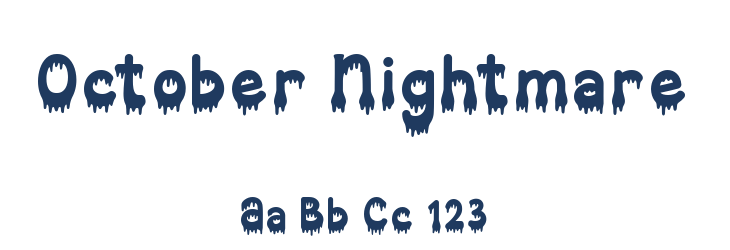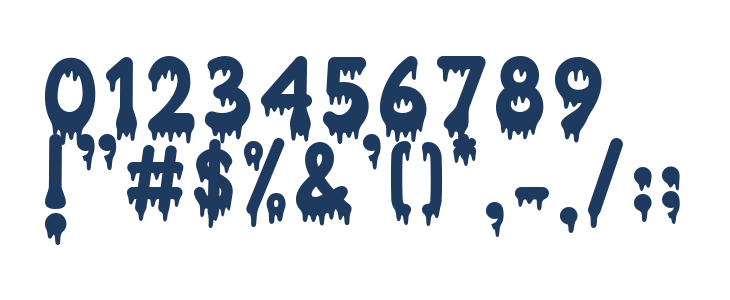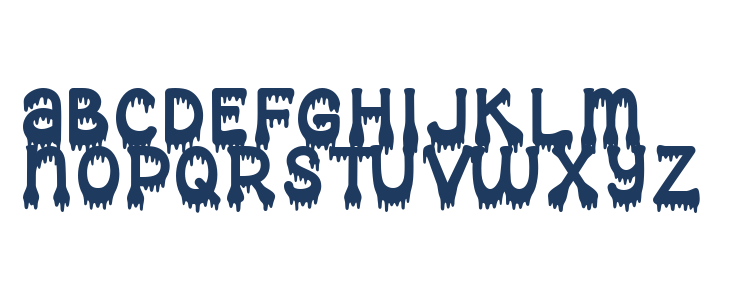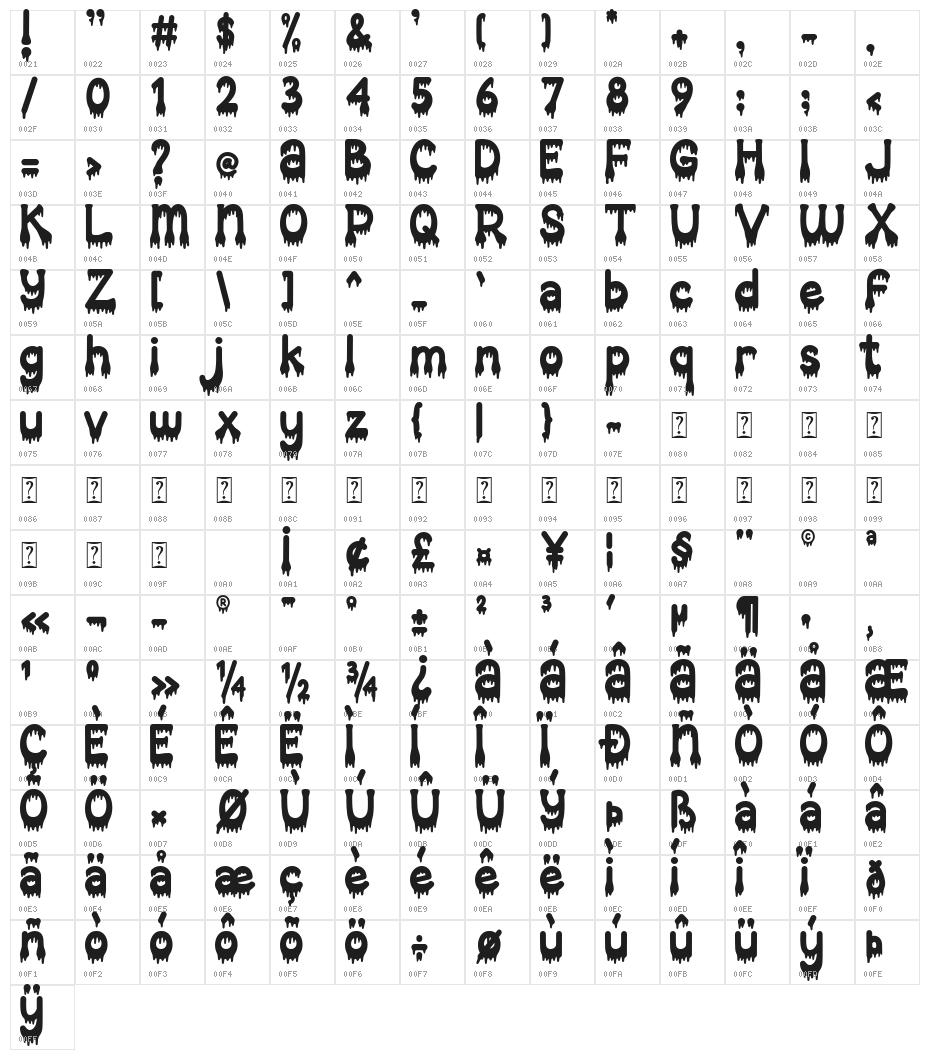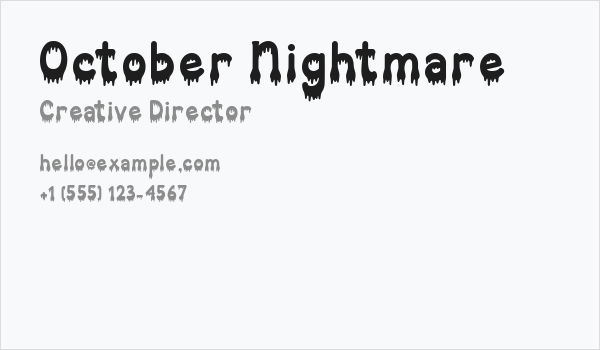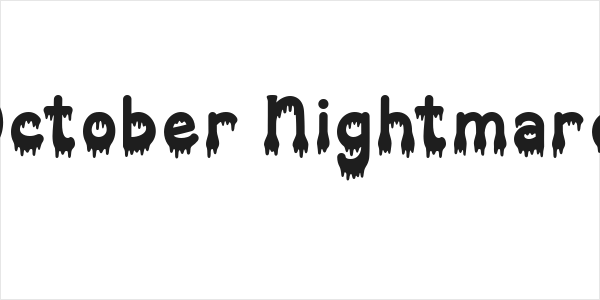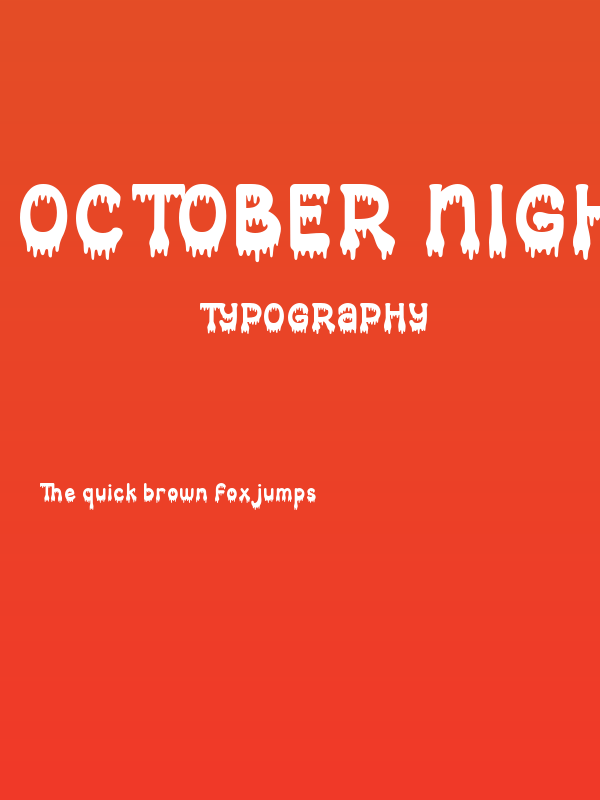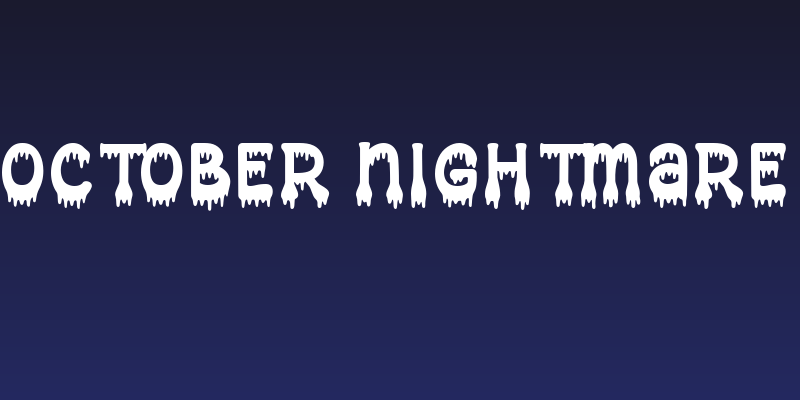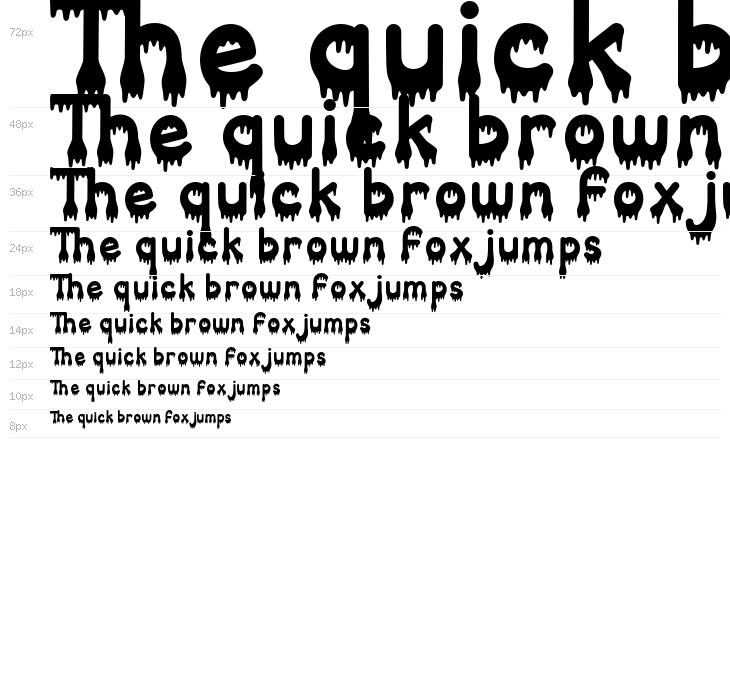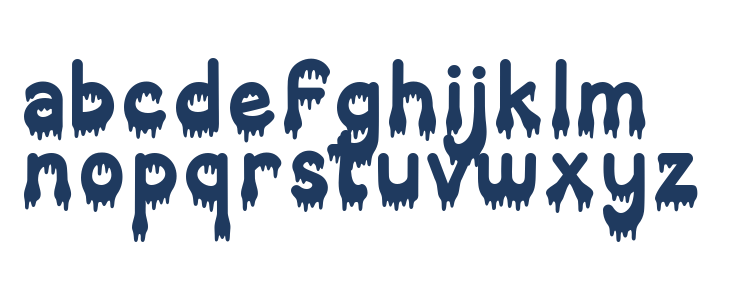
October Nightmare Font
A bold, dripping display font with rounded edges and a playful, spooky appearance, featuring thick strokes and decorative drip elements at the bottom of each character.
| Overall Style | Decorative, Spooky, Playful |
| Use Case | Headlines, Posters, Event Flyers, Themed Logos |
| Proposed Projects | Halloween posters, party invitations, horror-themed graphics, event flyers, children's spooky books. |